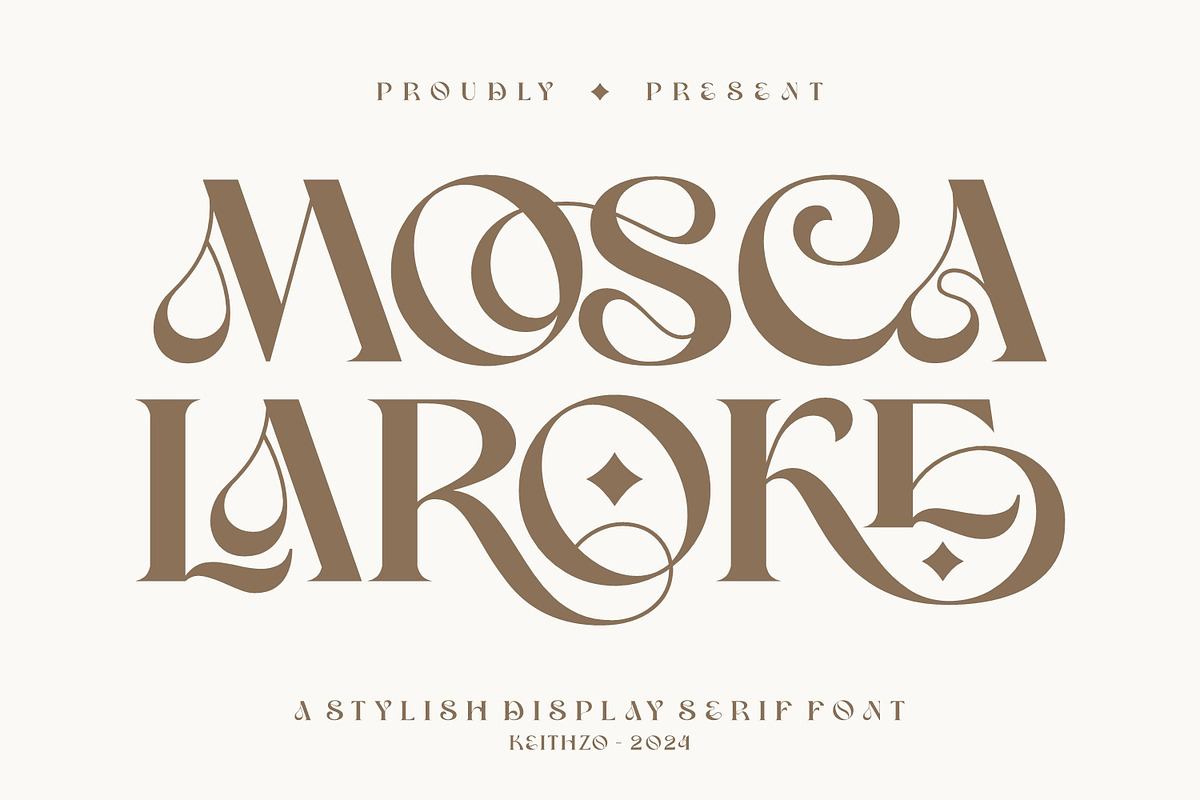
Mosca Laroke - Stylish Serif Font Free Download
Please note, you must purchase this font for commercial use. However, you can easily download Mosca Laroke - Stylish Serif Font Free Download for personal use and testing purposes. Mosca Laroke - Stylish Serif Font is an elegant and modern serif typeface designed with sophisticated curves and sharp edges. Perfect for high-end branding, editorial layouts, logos, and invitations, this font combines classic serif details with contemporary styling. Whether you're working on a luxury brand identity, a stylish magazine, or a refined logo, Mosca Laroke - Stylish Serif Font Free Download will bring a touch of class and modern appeal to your design projects. Download Mosca Laroke - Stylish Serif Font Free Download today and explore its full potential before opting for a commercial license.